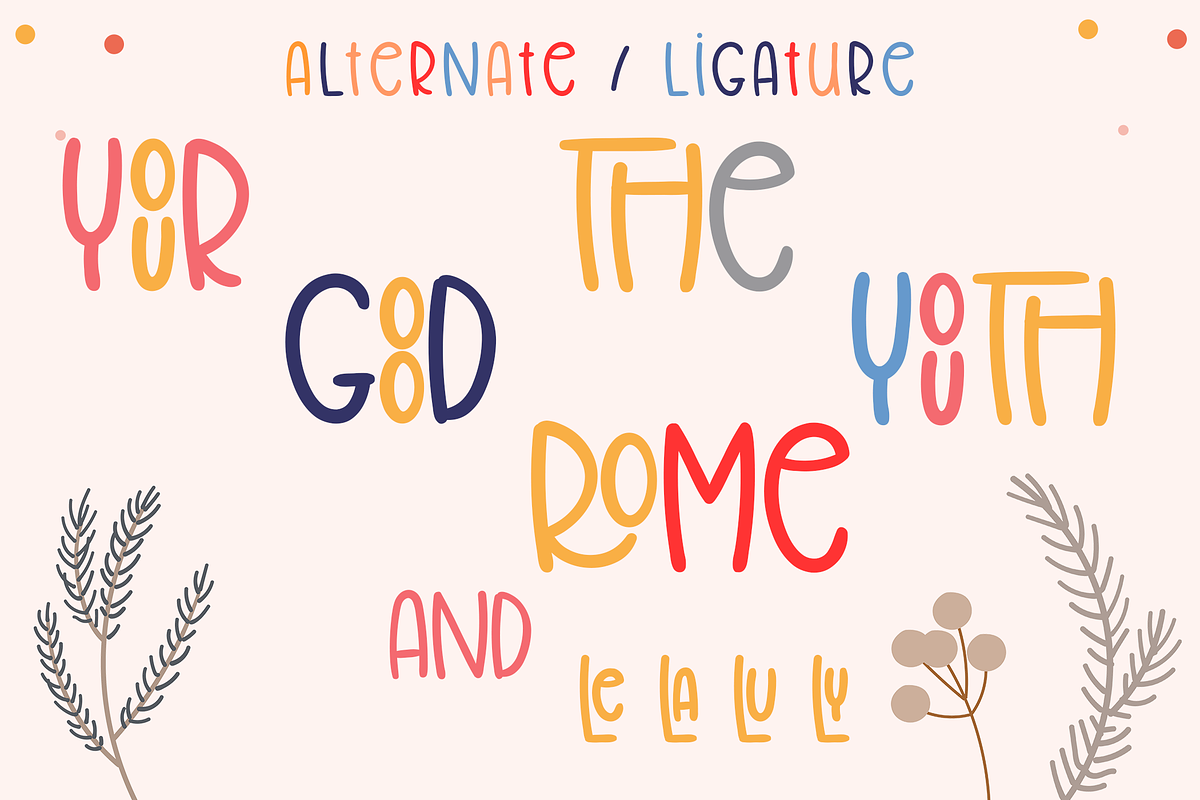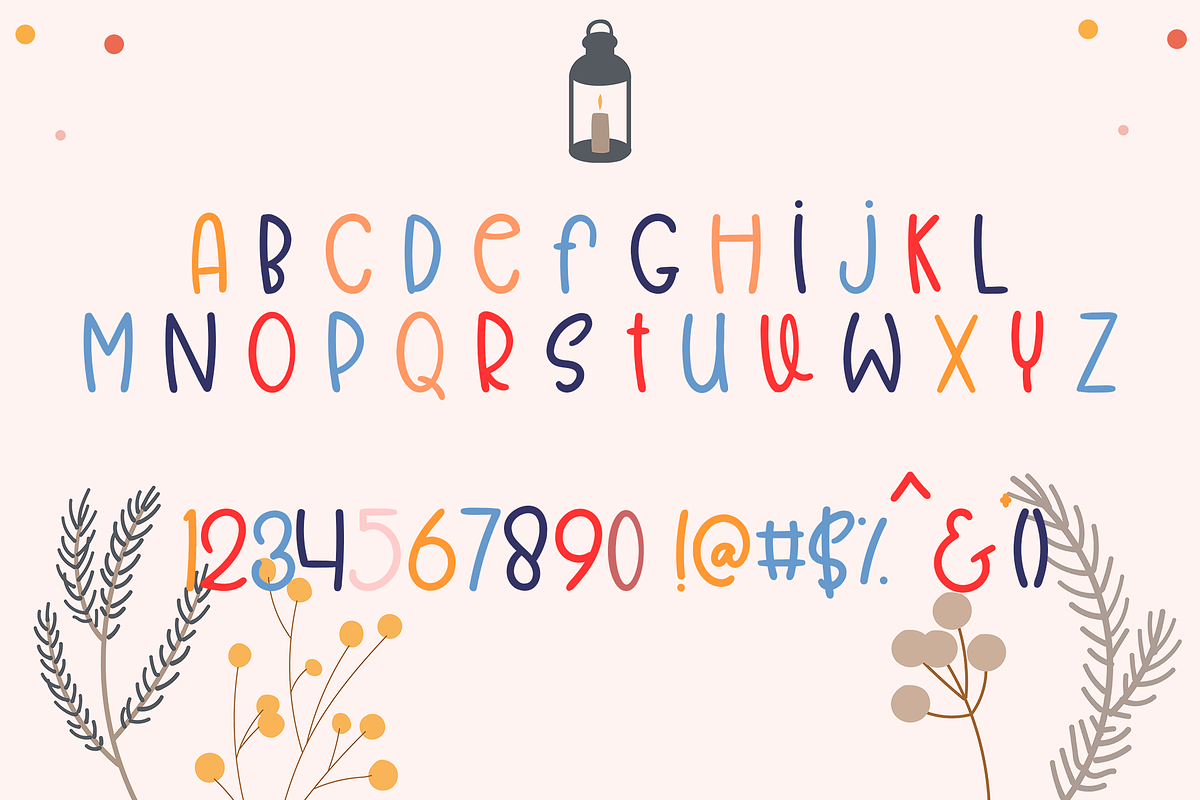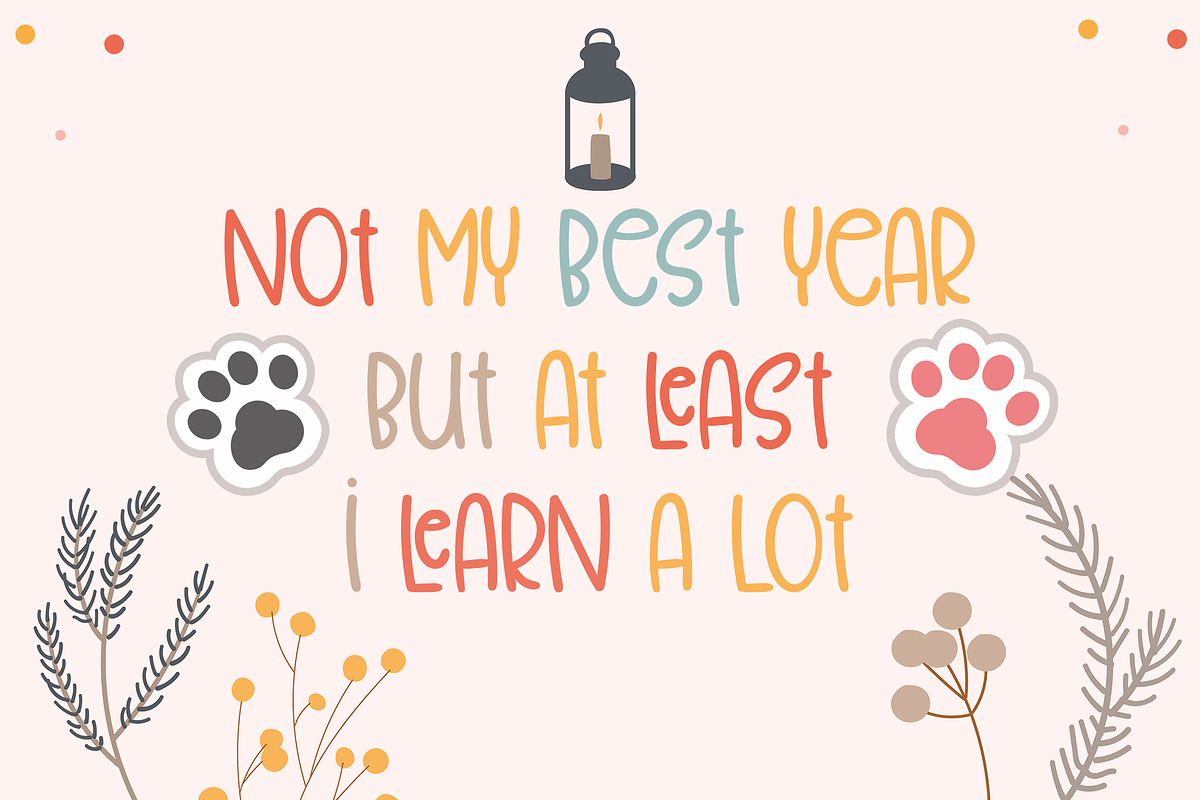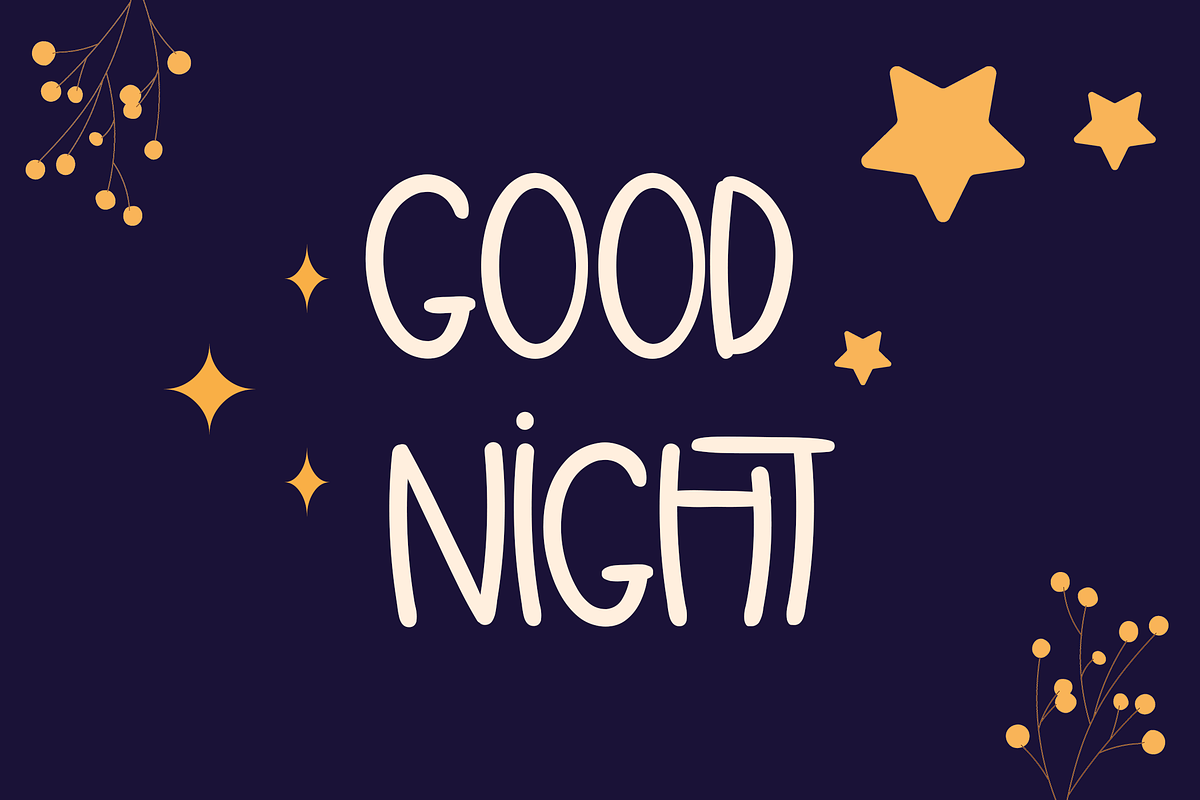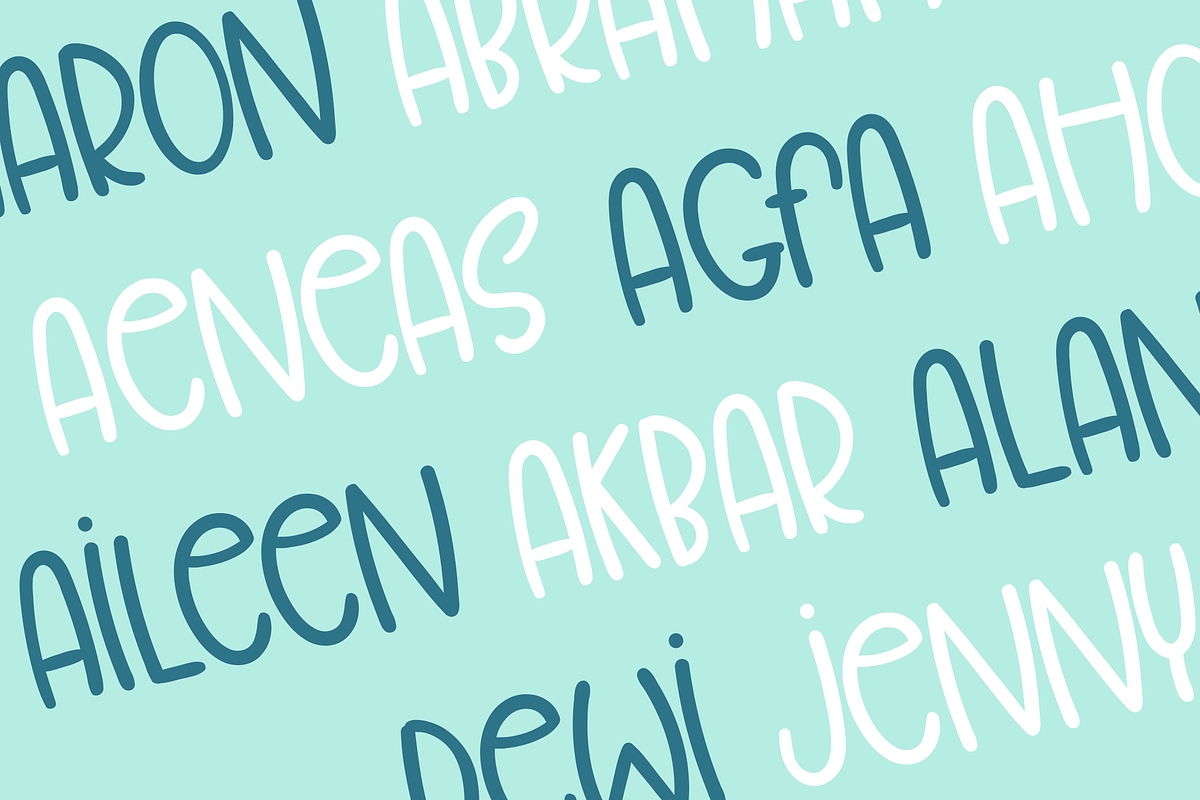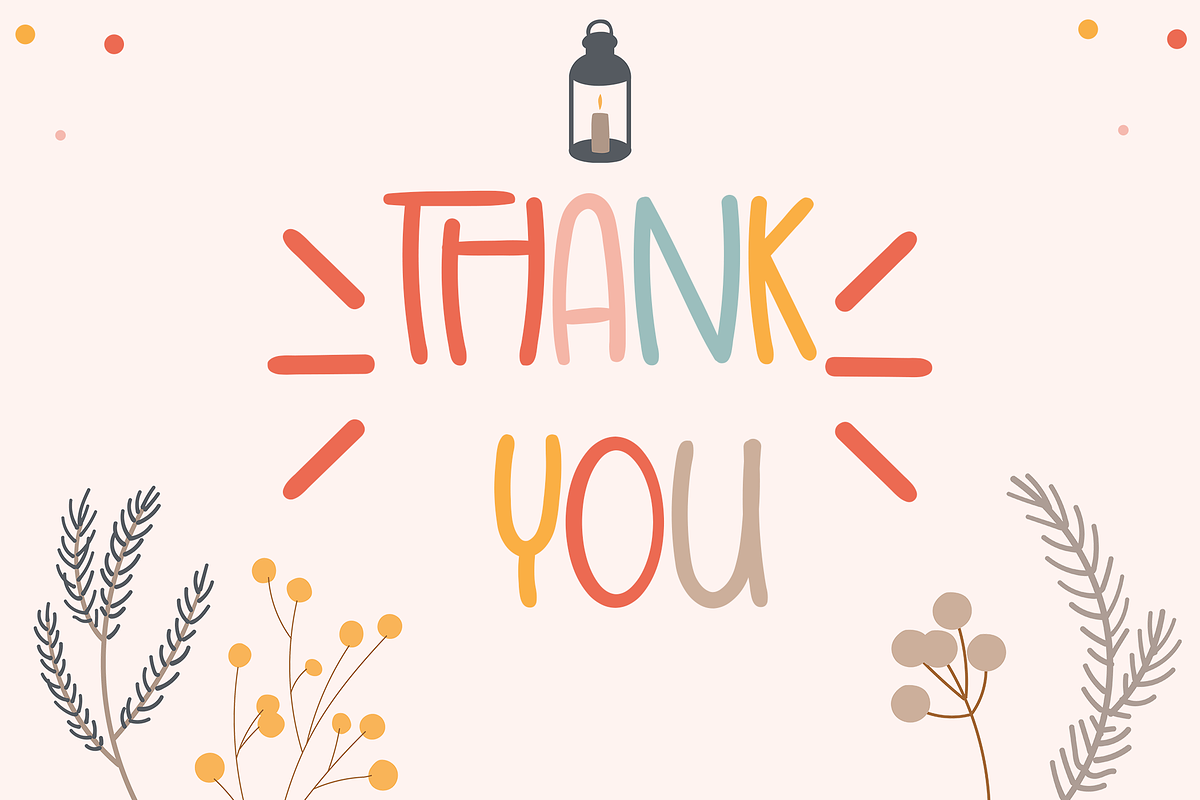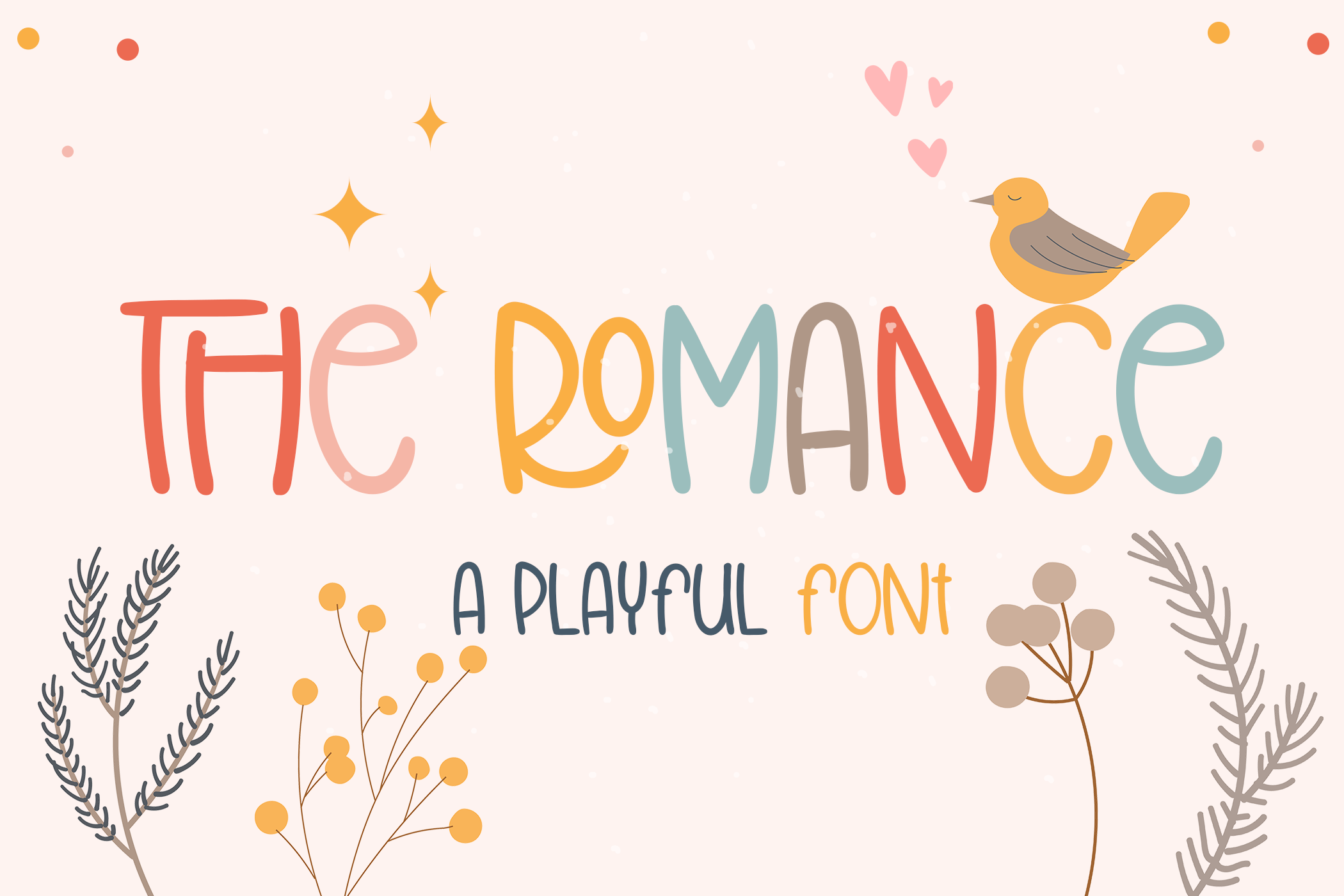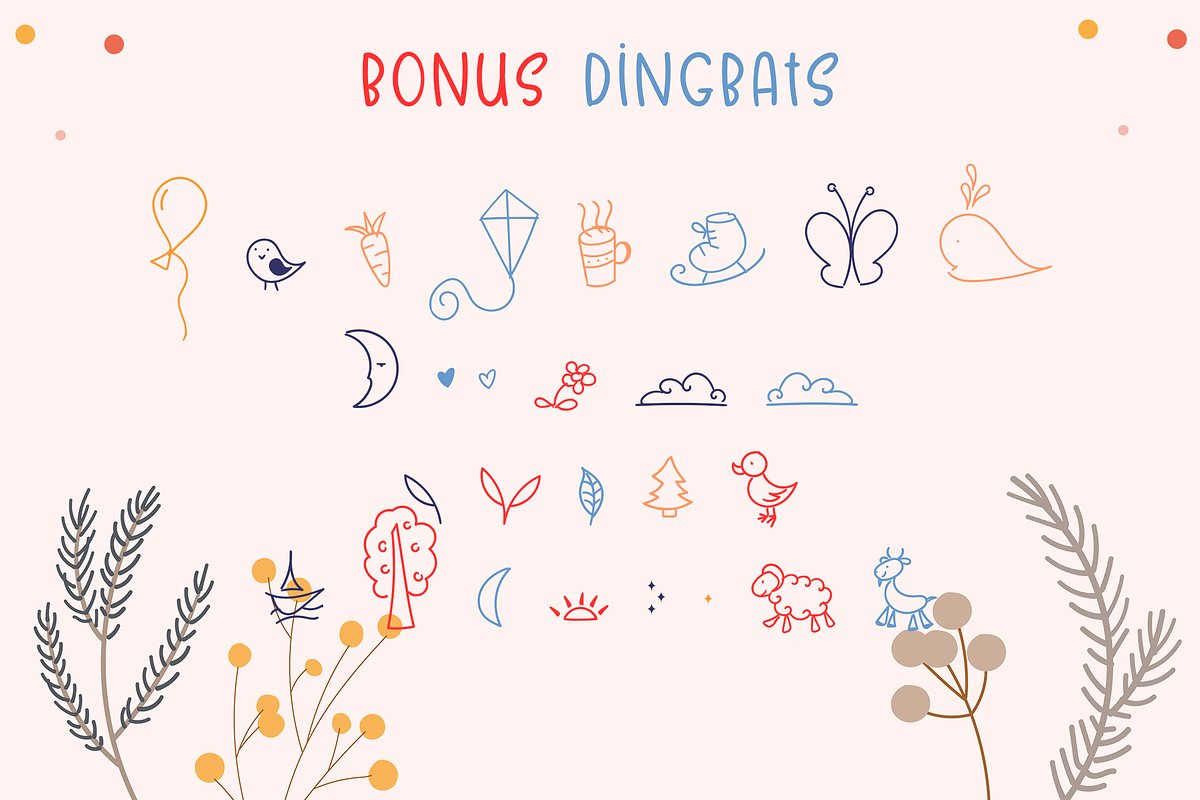
The Romance Font
The Romance is a cool and friendly handwritten font, perfect for children’s designs, chalkboard quotes, and teaching materials! Its authentic look will add a personal and realistic feel to your designs. Add it with confidence, and notice how it makes your creative projects shine!